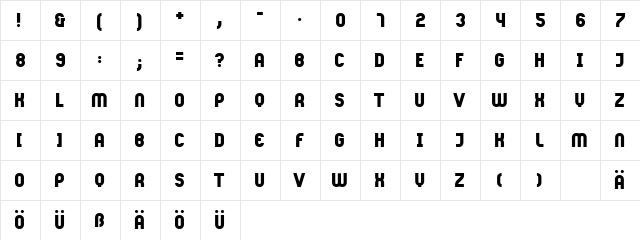
Mass Black Font Preview
Mass Black
Design Context for Mass Typeface
Mass offers clean, dependable letterforms without strong stylistic allegiance, making it a practical choice for designers who need flexibility.